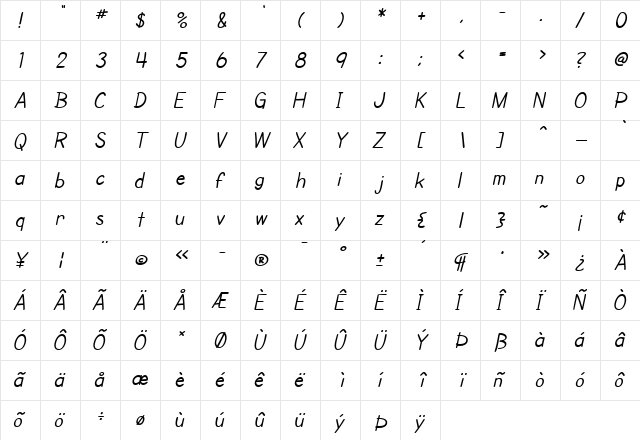
SF Cartoonist Hand Italic
Design Context for SF Cartoonist Hand Typeface
SF Cartoonist Hand has an approachable, lighthearted character — its loose, expressive forms are well-suited to children's content, casual branding, and fun-first design. The slanted form adds forward momentum and visual energy.
Great for children's books, toy packaging, family event branding, and casual consumer-facing design.
Font Pairing: Pairs well with a rounded or humanist sans for body copy, maintaining the friendly tone without relying on SF Cartoonist Hand to carry extended reading.
Pro Tip: Avoid using SF Cartoonist Hand for long passages of text — it works best for headlines, labels, and short calls to action.